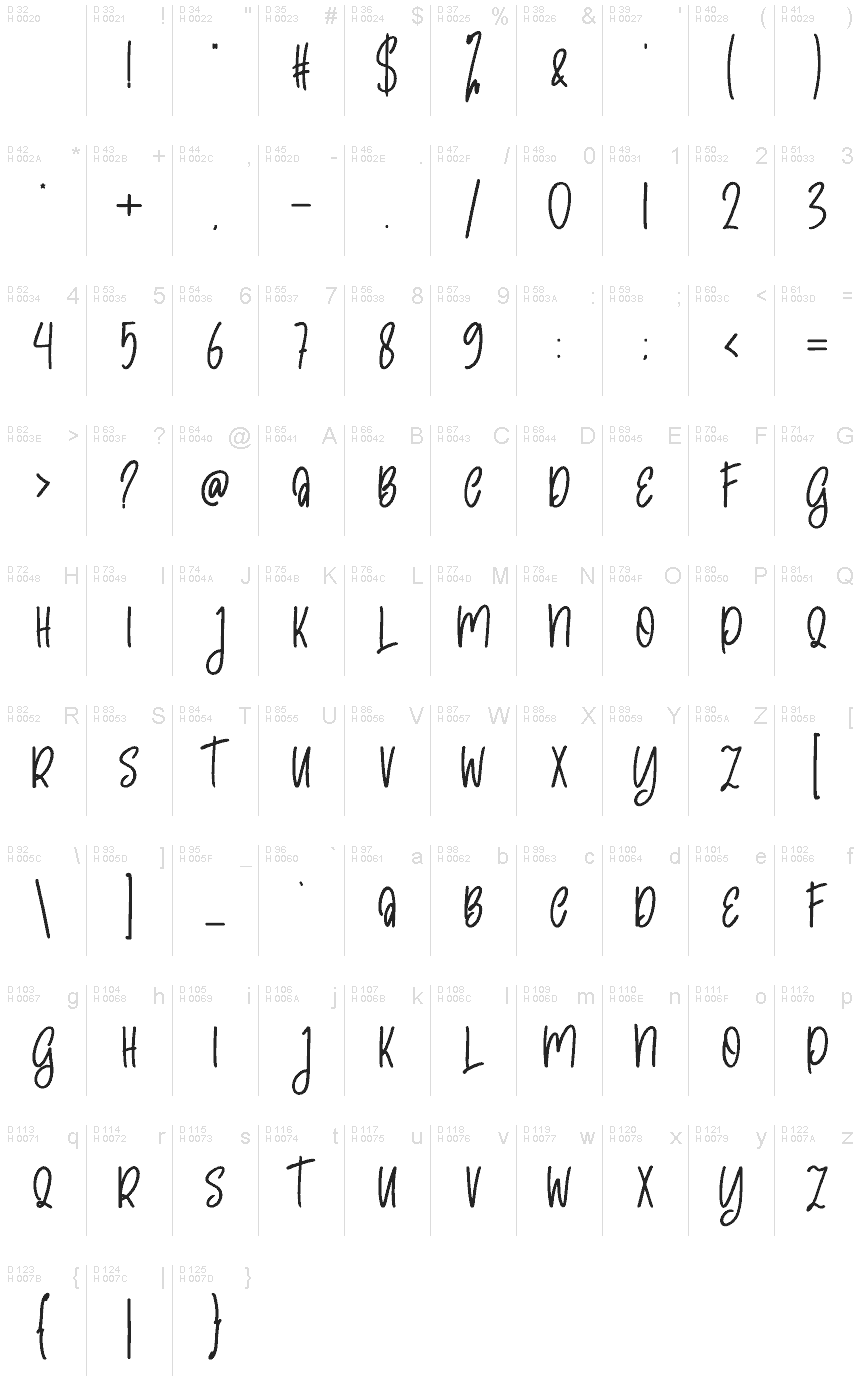
Bogacus
Bogacus font by Skiiller Studio gives off a casual, stylish, and modern vibe with its brushed appearance. This handwritten font is all about free expression and artistic flair while still introducing readers to a real contemporary feeling. With its letters being both slanted and condensed, it carries many attributes similar to that of signature texts.
Perfect for branding potential, Bogacus is ideal for business cards where the field of work might be food, clothing, or beauty as it’s expressive enough to compel users. Otherwise think social media graphics like Instagram stories, posts on Facebook timelines, animated videos on TikTok – the possibilities are endless!